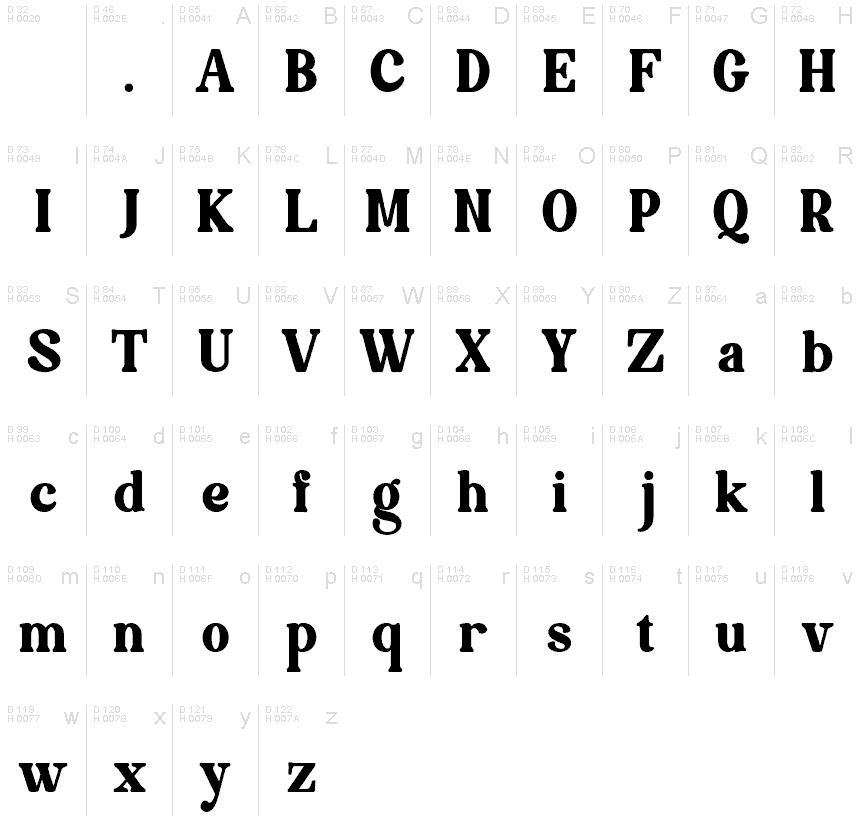
Dorgan Regular
Dorgan font by Achmad Yani of Flawless And Co is the essence of elegance. This bold and structured display font is inspired by classic retro design. Let its letters grab the attention of your viewers with its powerful assertive presence that doesn’t go unnoticed. Its vintage vibes channel beauty and balance, while its serif style adds a professional touch.
Free for use, Dorgan is ideal for branding, packaging, product design, book covers, invitation cards (wedding or regular), ads (digital or printed), and multiple other types of projects!